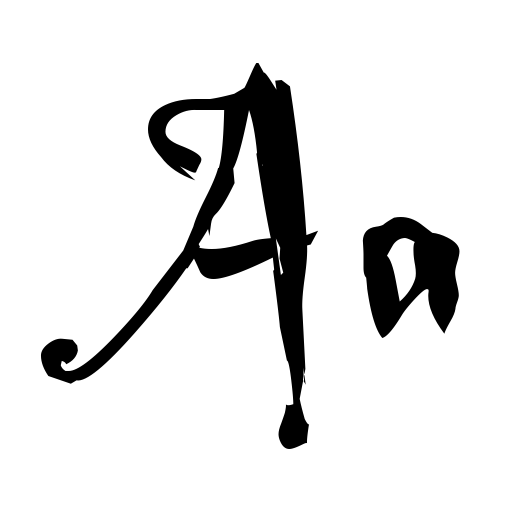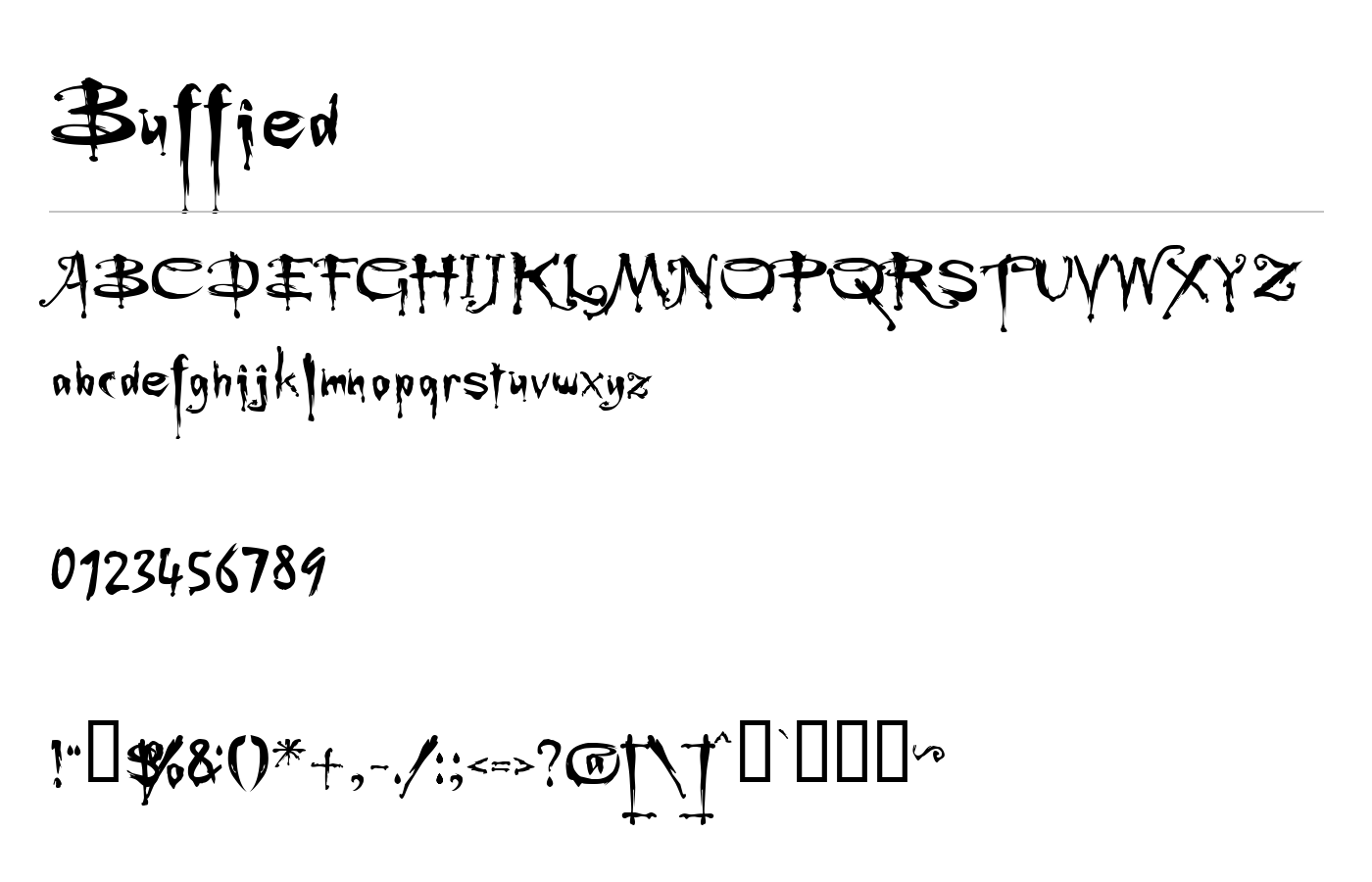
Buffied is a decorative, handwritten-style font with a dark, eerie vibe, featuring irregular, dripping strokes that create a spooky, unsettling effect. Its quirky letterforms and uneven weight give it a unique, artistic character perfect for Halloween themes, horror projects, or any design needing a touch of mystery and edge. This font works best for headlines, posters, and creative branding where a dramatic and unconventional appearance is desired.
Buffied Font
About Buffied Font